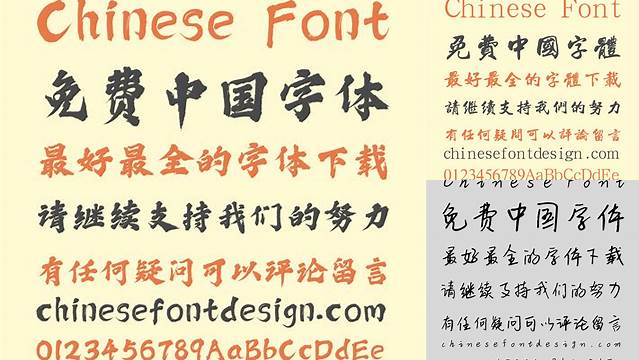
Download Free Chinese Style Fonts
Hey guys! Are you looking to add some seriously cool Chinese flair to your designs? You've come to the right place! We're diving deep into the world of chinese style fonts free download, and I'm going to show you where to find some awesome options to spice up your projects. Whether you're working on a poster, website, or just want to play around with typography, these fonts will definitely add a unique touch. Let's get started!
Chinese Calligraphy Fonts Free
So, you're into the elegant strokes and fluid lines of chinese calligraphy fonts free, huh? Me too! There's something so timeless and artistic about them. When we talk about chinese calligraphy fonts free, we're often looking at typefaces that mimic the traditional brushstrokes of Chinese writing. These fonts can really elevate your design, giving it a sophisticated and authentic feel. But where do you find them? Well, there are tons of resources online. Websites like DaFont, Fontspace, and even Google Fonts offer a selection of free calligraphy-inspired fonts. Just be sure to check the license before you use them, especially if it's for a commercial project. You don't want to get into any copyright trouble! Think about the mood you want to create. Do you want something bold and dramatic, or delicate and refined? There's a calligraphy font out there for every occasion. Experiment with different styles and see what works best for your design. The beauty of chinese calligraphy fonts free is that they can instantly transport your audience to another culture and time. They’re perfect for invitations, posters, and anything that needs a touch of Eastern elegance. Don’t be afraid to mix and match them with other font styles to create a unique and eye-catching design.
Free Chinese Brush Fonts
If you’re aiming for that authentic, hand-painted look, then free chinese brush fonts are your best friend. These fonts replicate the texture and irregularity of actual brushstrokes, giving your text a natural and artistic feel. Imagine using them for a movie poster, a book cover, or even a cool t-shirt design! The possibilities are endless. Finding high-quality free chinese brush fonts can sometimes be a challenge, but don't worry, I've got you covered. Many font websites offer a selection of these brush-style fonts, and you can often filter your search to find free options. Just remember to always double-check the licensing terms before you download and use them. These types of fonts are particularly effective when paired with imagery that complements their style. Think traditional landscapes, ink paintings, or even modern abstract art. The contrast between the handwritten feel of the font and the visual elements can create a stunning effect. So, go ahead and explore the world of free chinese brush fonts. Let your creativity flow, and don't be afraid to experiment with different styles and combinations. You'll be amazed at the results you can achieve!
Download Chinese Fonts for Free
Best Chinese Fonts Free
When it comes to finding the best chinese fonts free, it's all about knowing what to look for. Not all free fonts are created equal, and some are definitely better than others. So, how do you separate the wheat from the chaff? Well, for starters, consider the quality of the font. Is it well-designed and easy to read? Does it have a consistent style and weight? A poorly designed font can actually detract from your design, so it's worth taking the time to find a good one. Another thing to think about is the versatility of the font. Can you use it for a variety of different projects? A font that's only suitable for one specific purpose might not be the best choice in the long run. When searching for the best chinese fonts free, don't overlook the importance of readability. While some fonts might look visually stunning, they may not be easily legible, especially in smaller sizes. Always test the font in different sizes and contexts to ensure it remains clear and readable. The best chinese fonts free often come from reputable sources, like Google Fonts or well-known font foundries that offer free trials or limited versions of their fonts. These sources are more likely to provide high-quality, well-crafted fonts that are a joy to work with. Ultimately, the “best” font is subjective and depends on the specific needs of your project. However, by considering quality, versatility, and readability, you can significantly narrow down your options and find a font that truly shines.